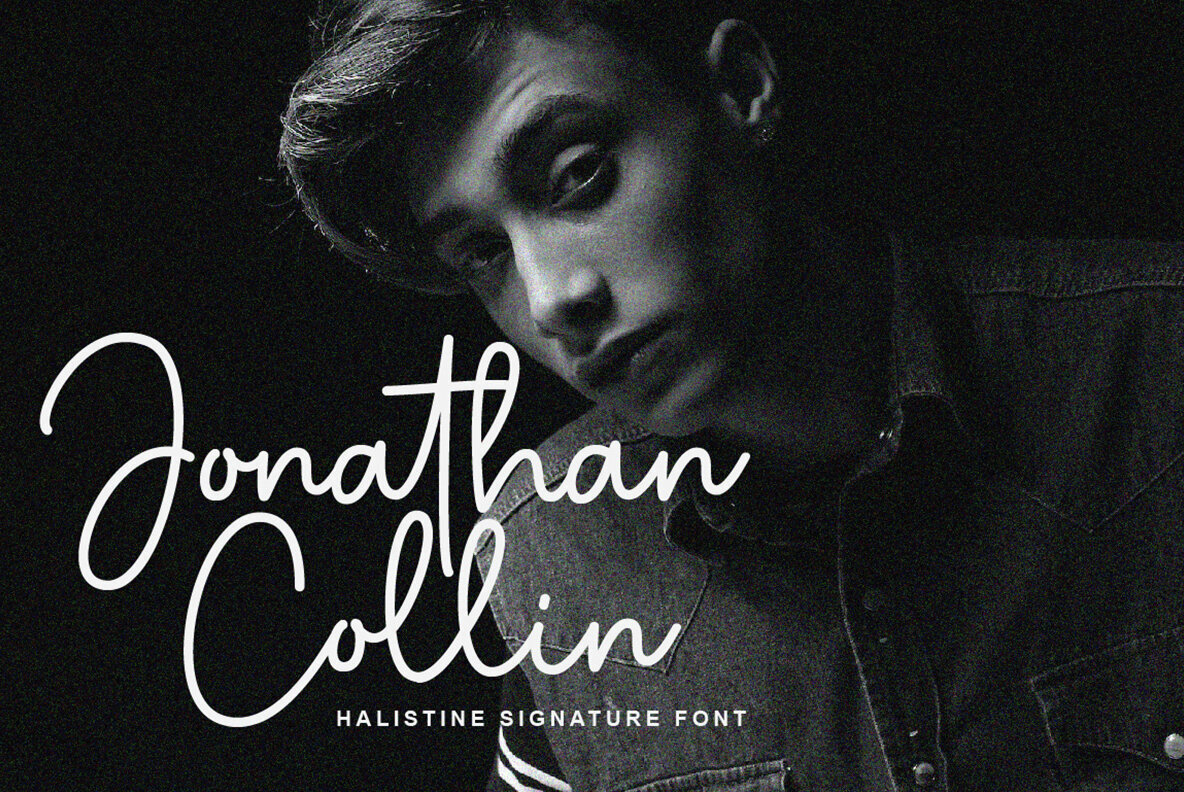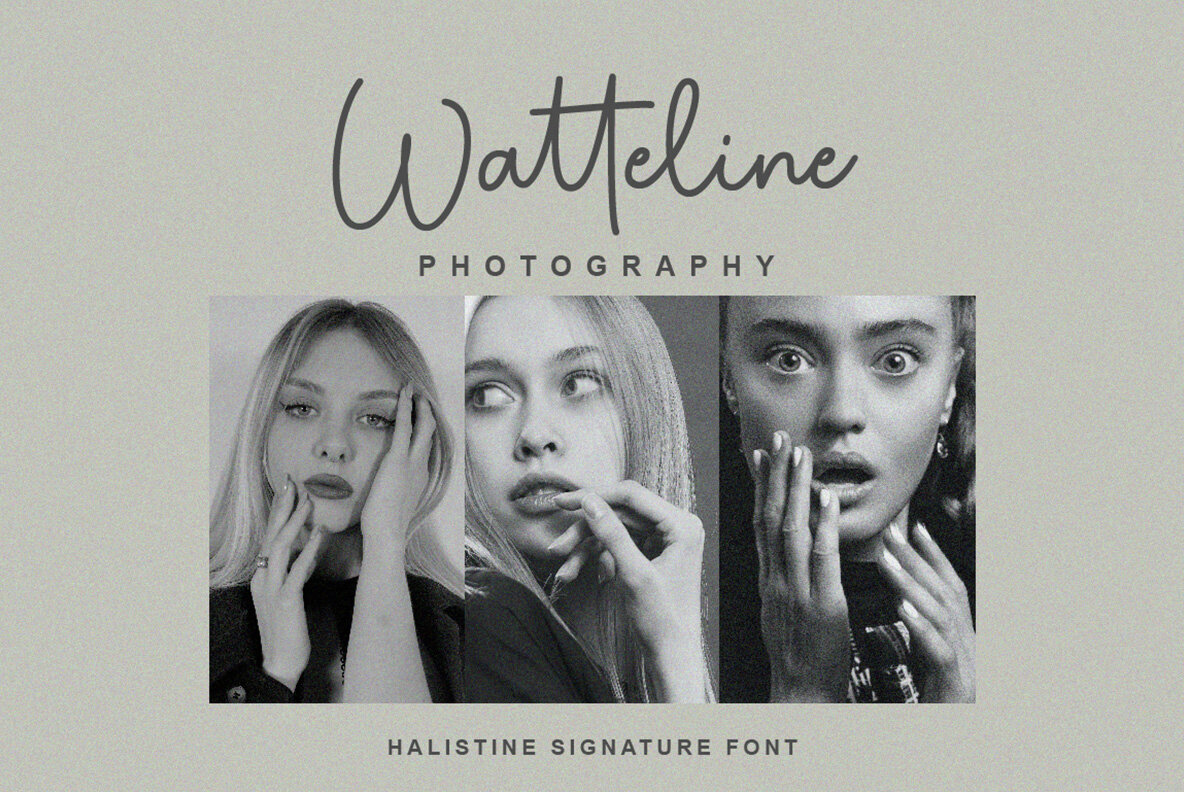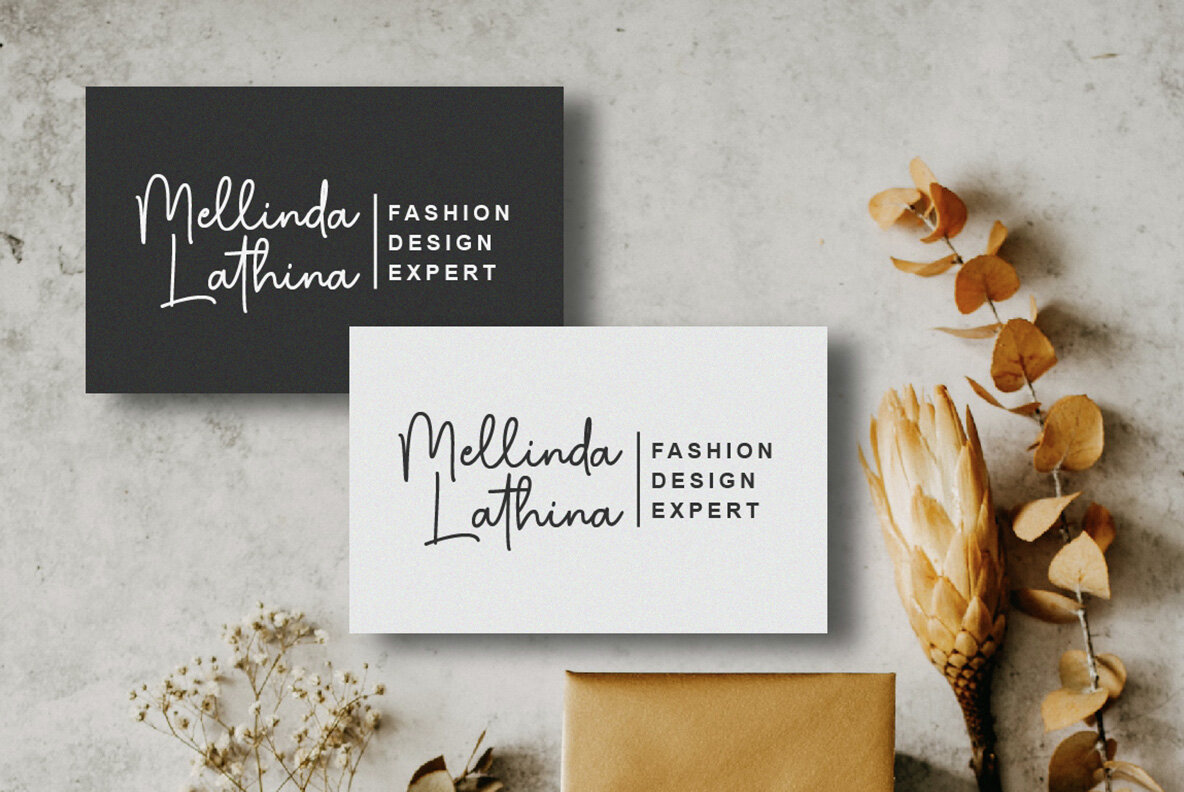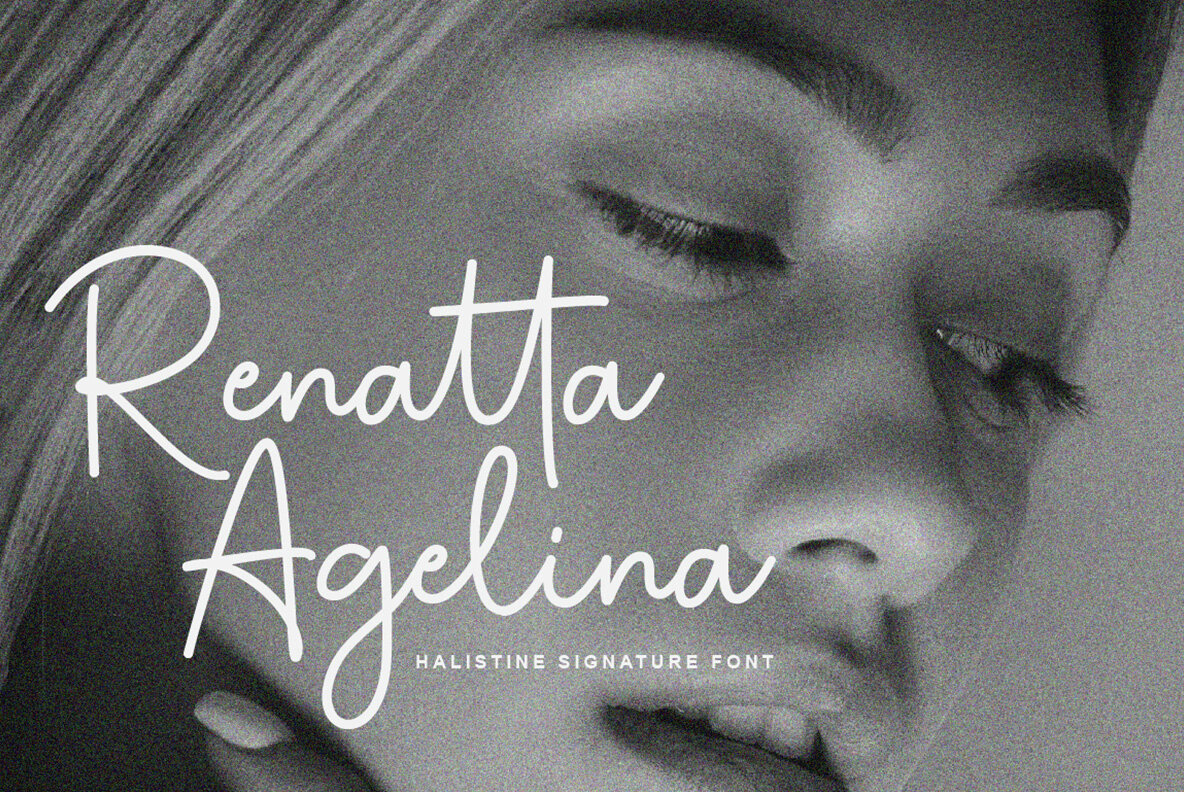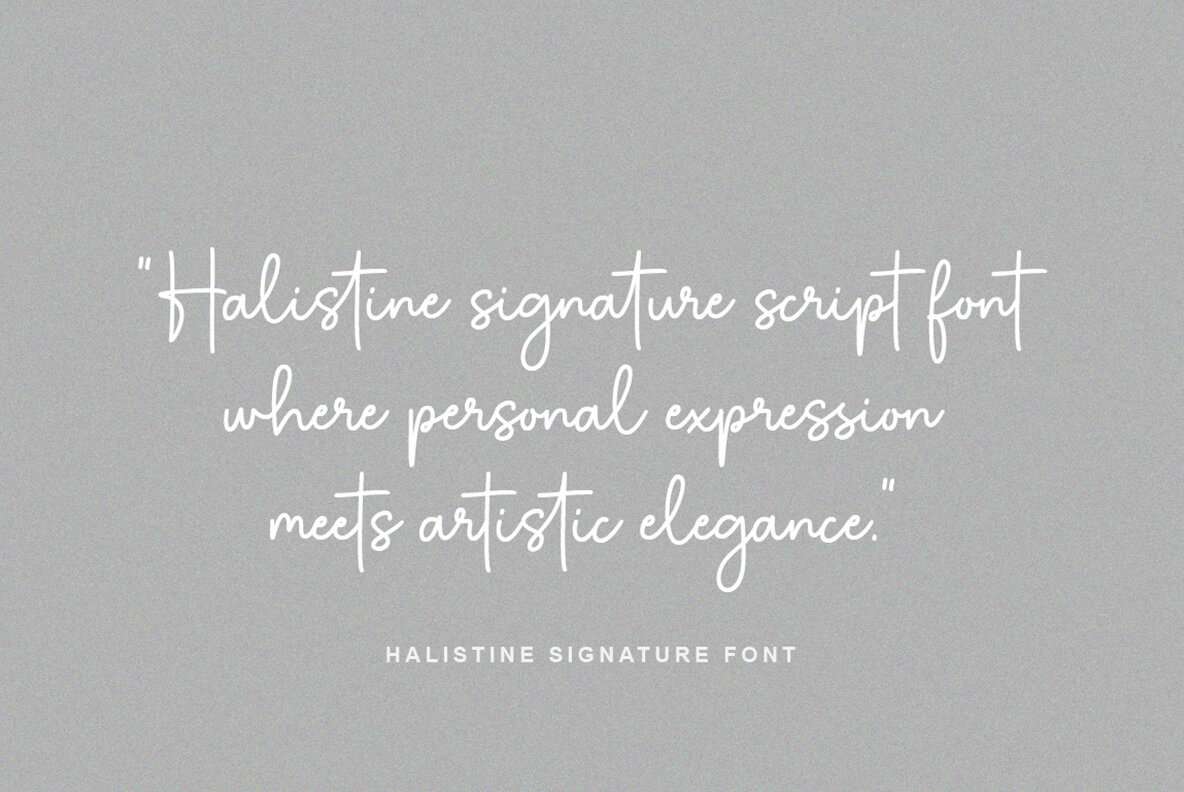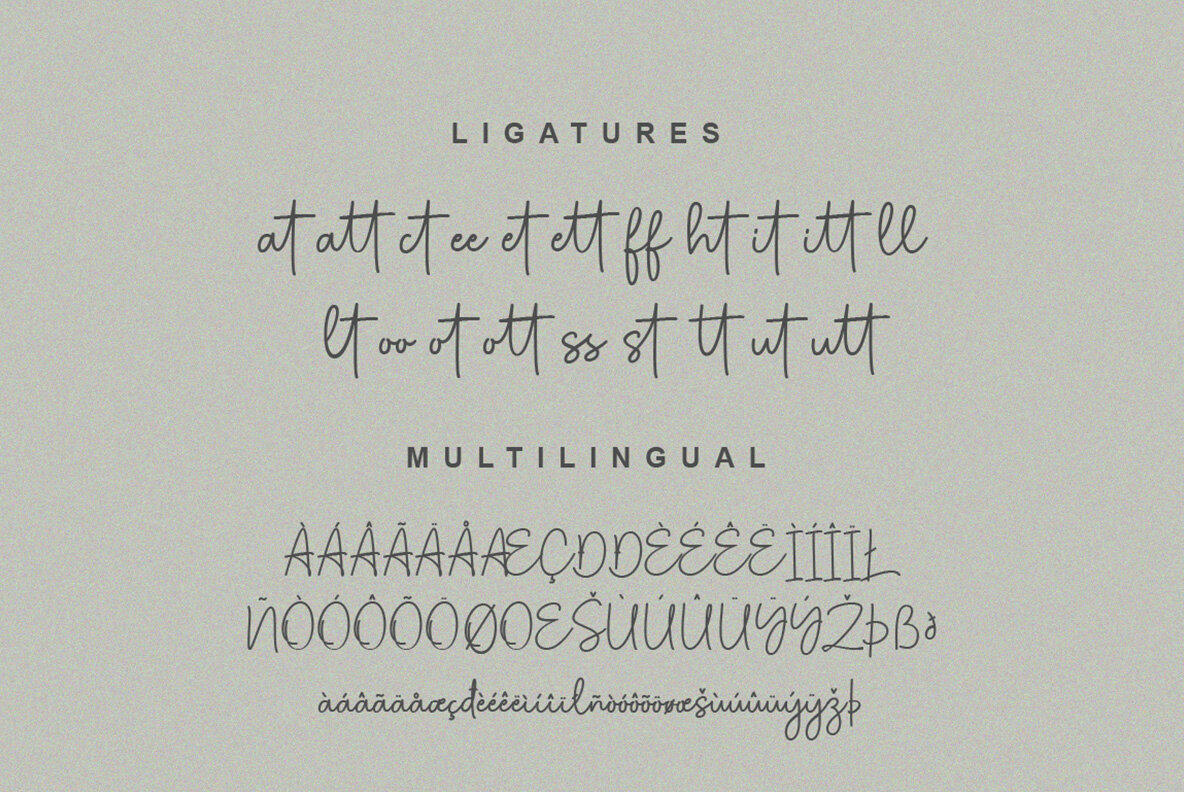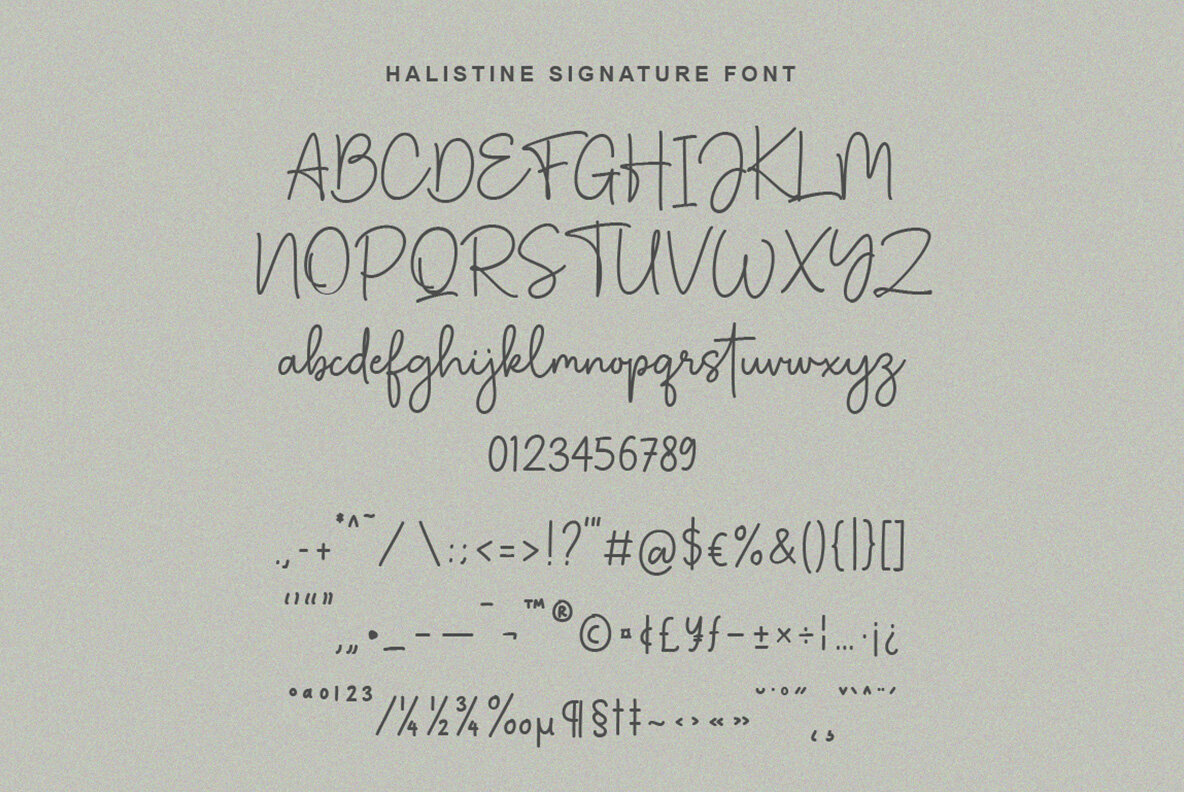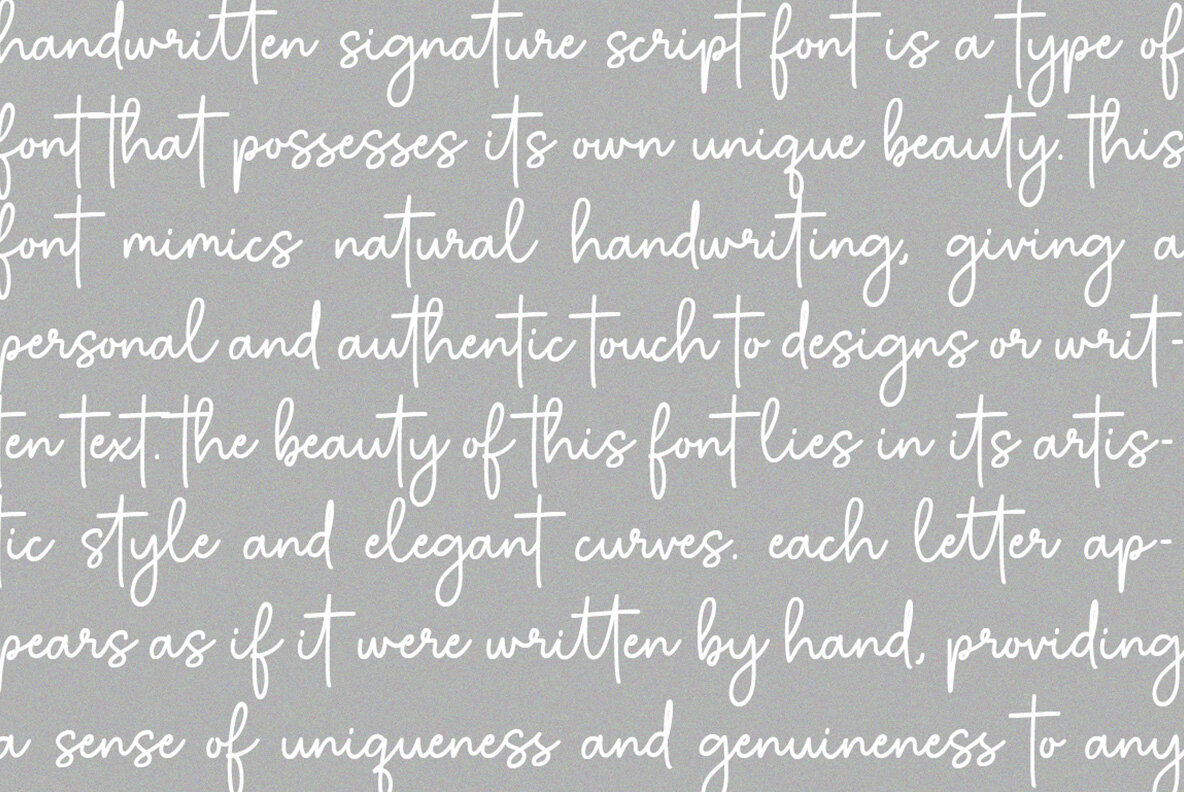
Halistine Signature Font
Halistine Signature
The Halistine Signature is a monoline script font that embodies a signature style with a handwritten appearance. Its inspiration from natural handwriting lends this font an elegant, smooth, and personal touch, making it ideal for designs that need a casual yet sophisticated feel.Halistine Signature: Elegant Monoline Script Font